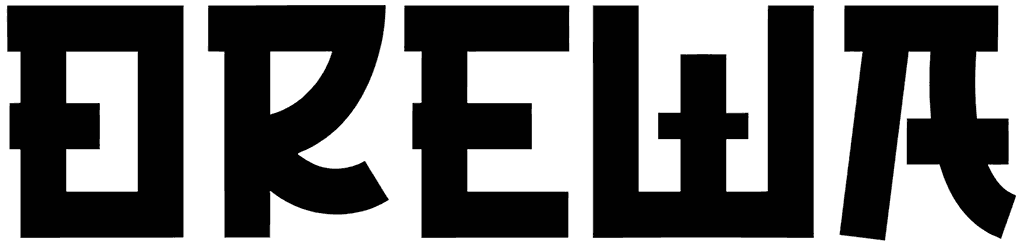
Orewa Font
Orewa is a playful font that is perfect for adding a touch of flair to logos, posters, and invitations, but it’s also a great choice for any other type of design despite its lack of numbers. Orewa is only one of several fonts in RB’s library that draw inspiration from many cultures and eras.